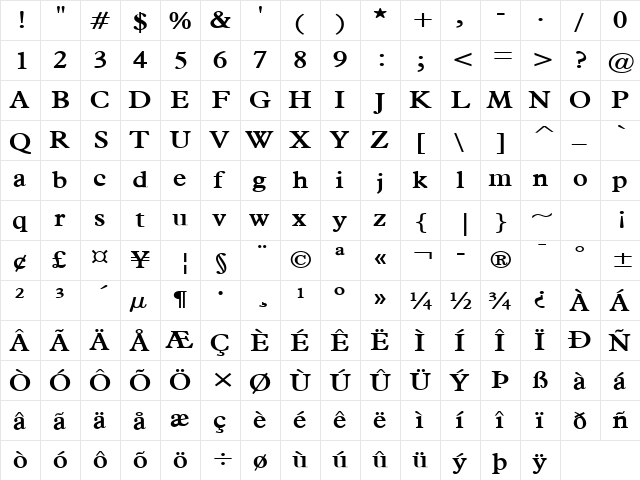
Nadine Bold
Design Context for Nadine Typeface
Nadine offers clean, dependable letterforms without strong stylistic allegiance, making it a practical choice for designers who need flexibility. Its bold stroke weight gives it real presence on the page.
Pro Tip: Use Nadine in both headline and body roles to test its range before committing to a single application.